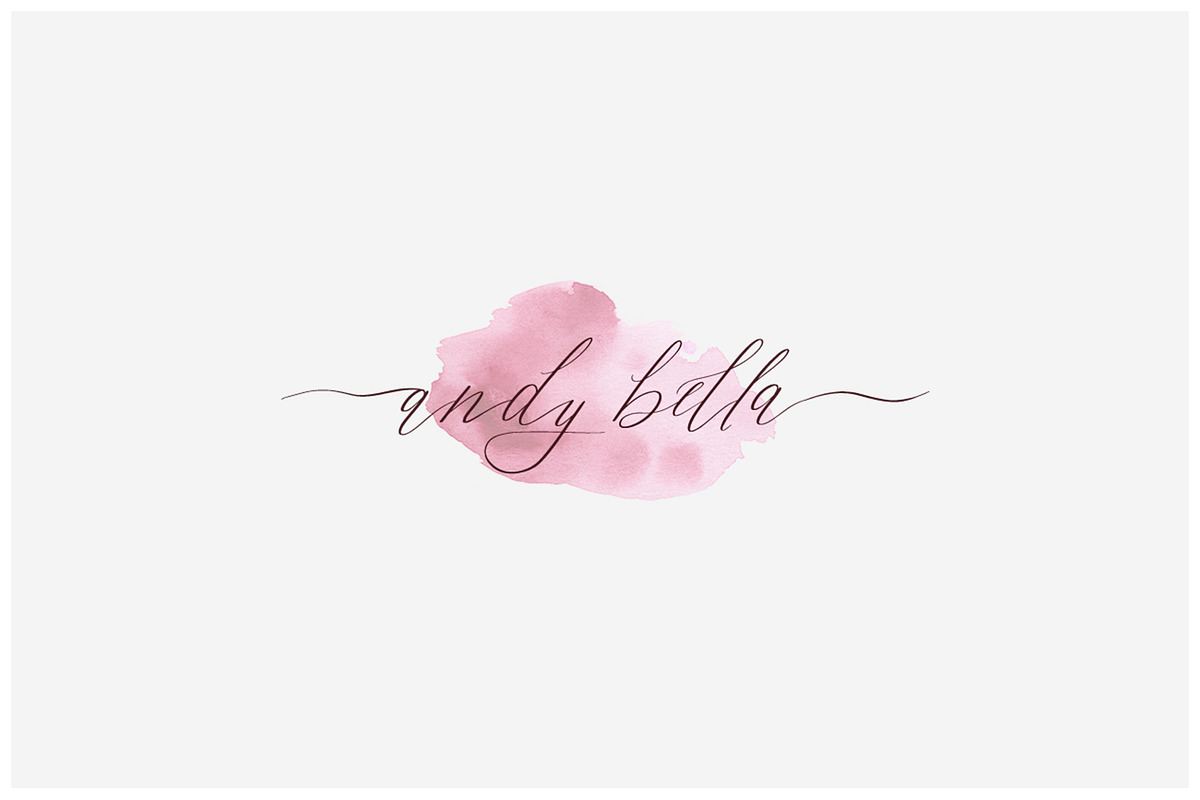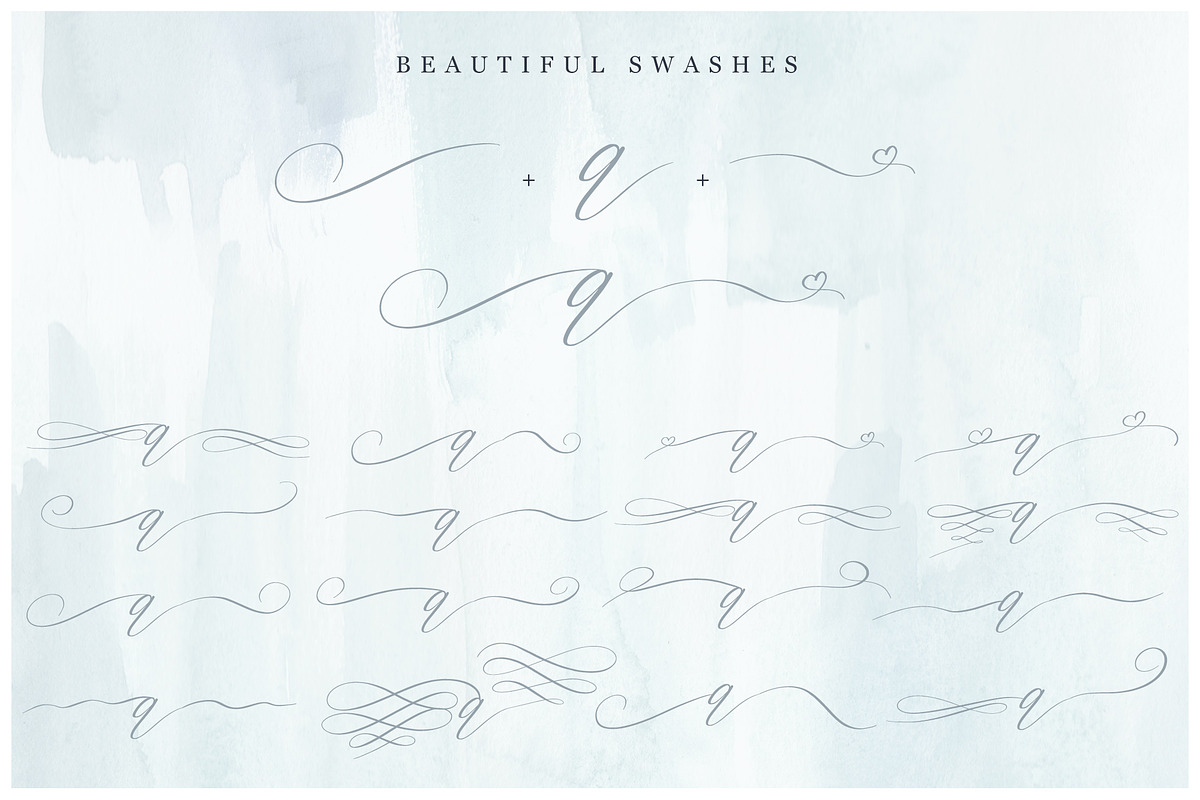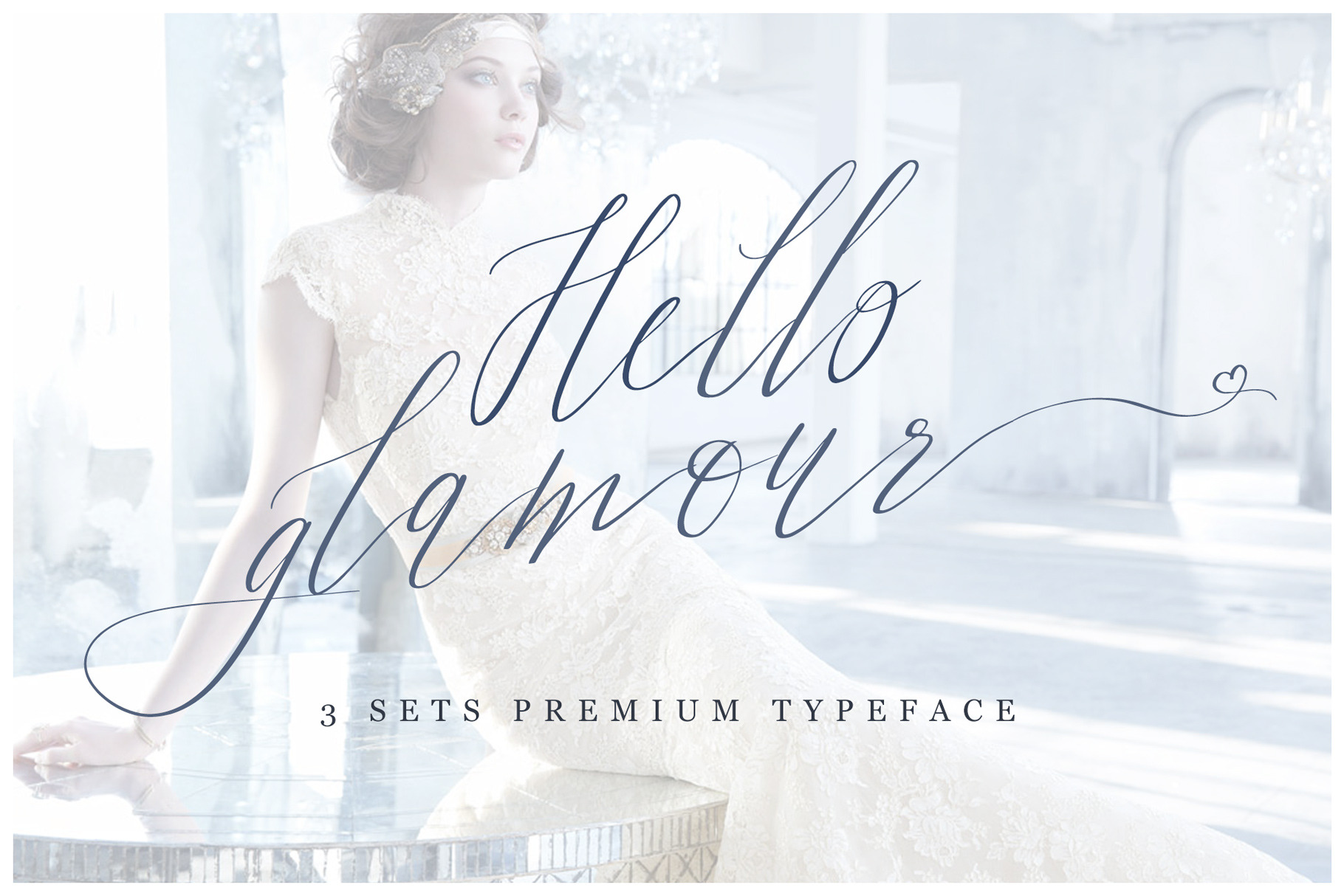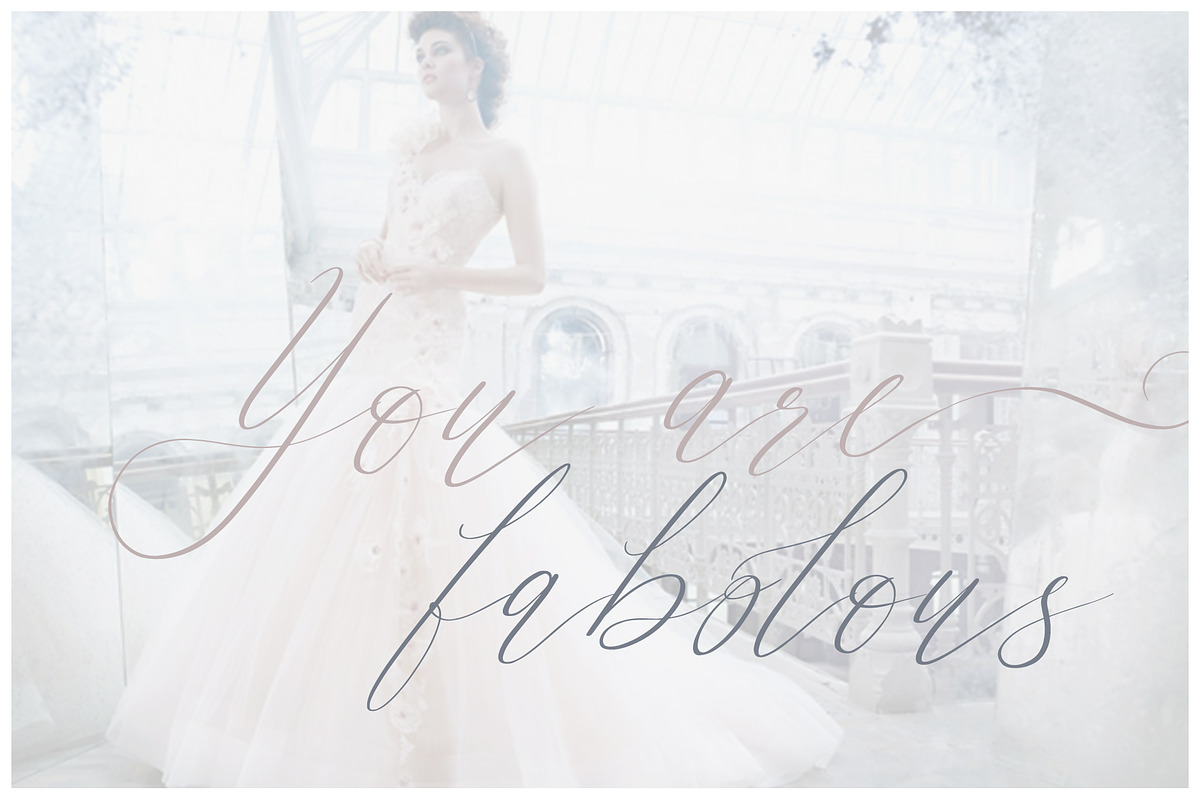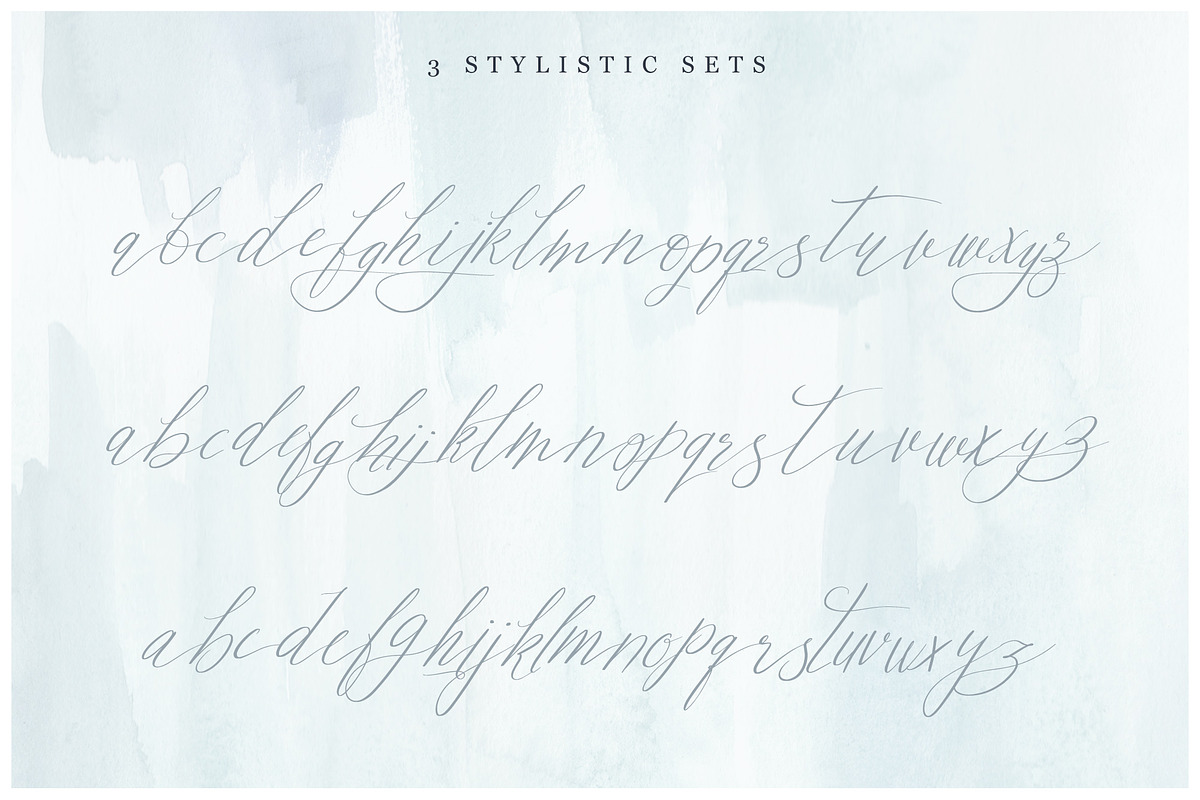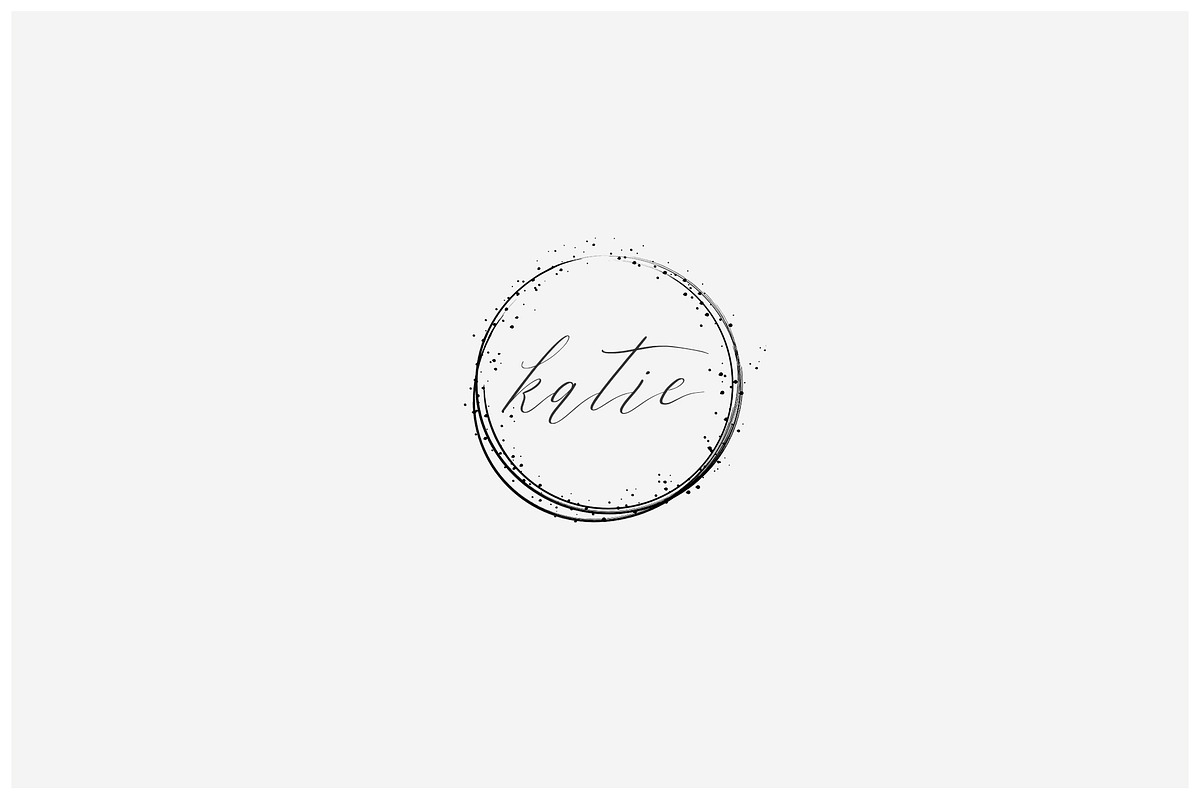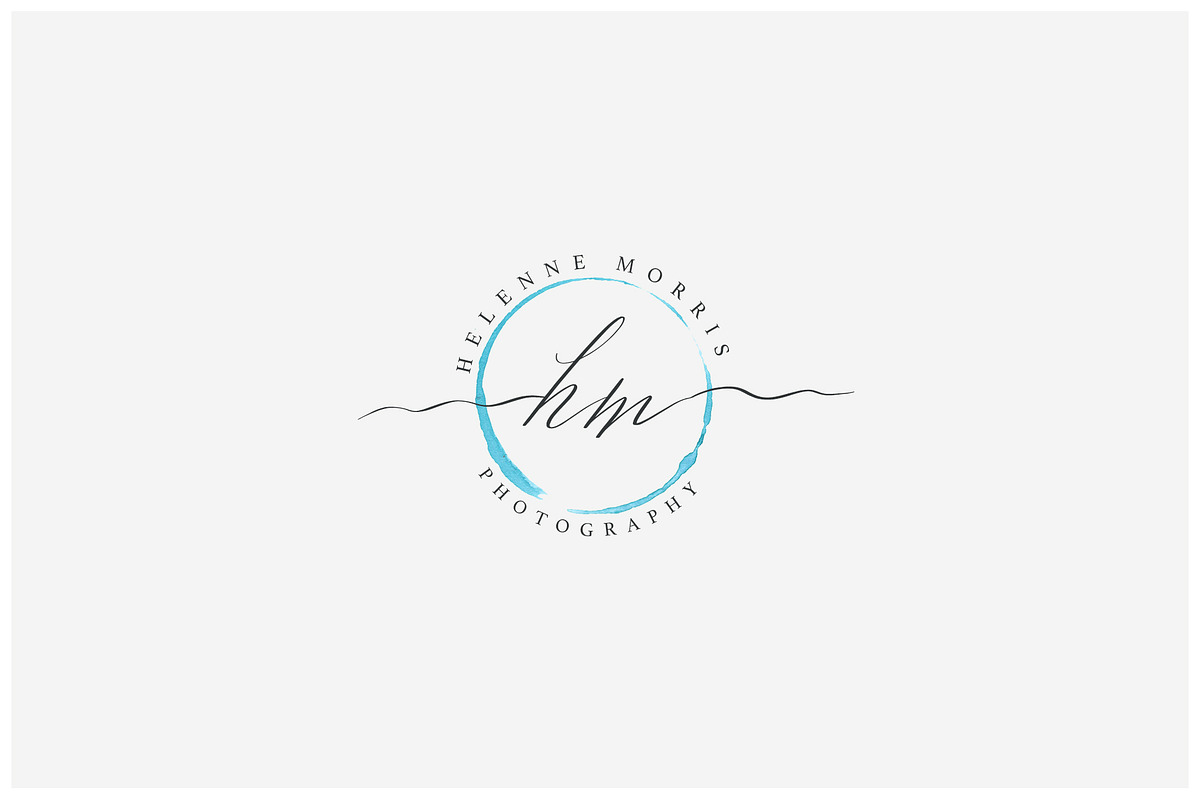
Hello Glamour font with swashes
Hello Glamour is a luxury modern calligraphy font with 3 full sets of small letters and 2 sets of capitals + extra set of beautiful swashes that you can add to beginning on end of your words/letters.
This premium typeface is awesome for modern feminine branding, logos, invitations, stationary, weddings etc.